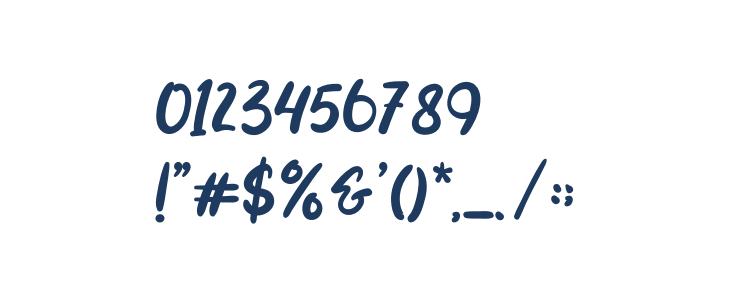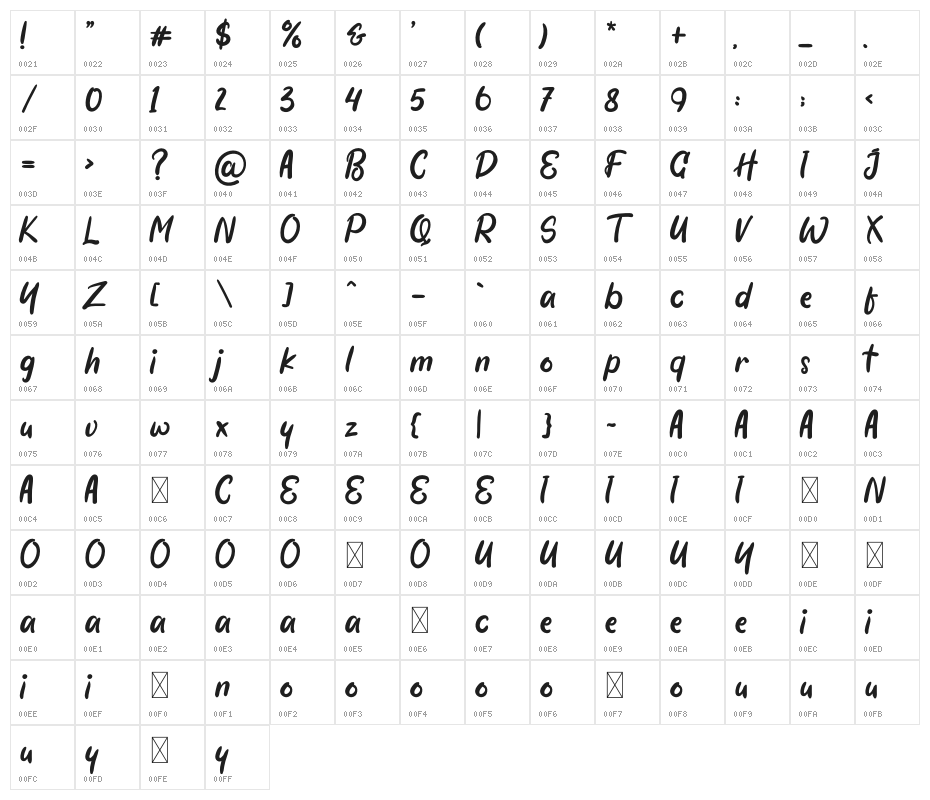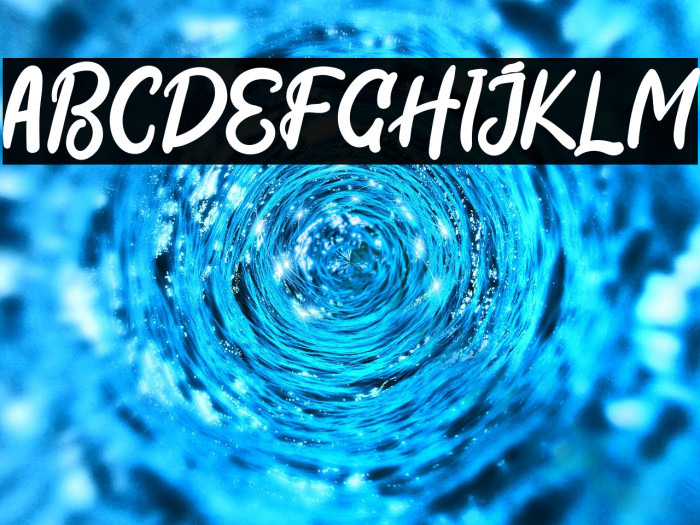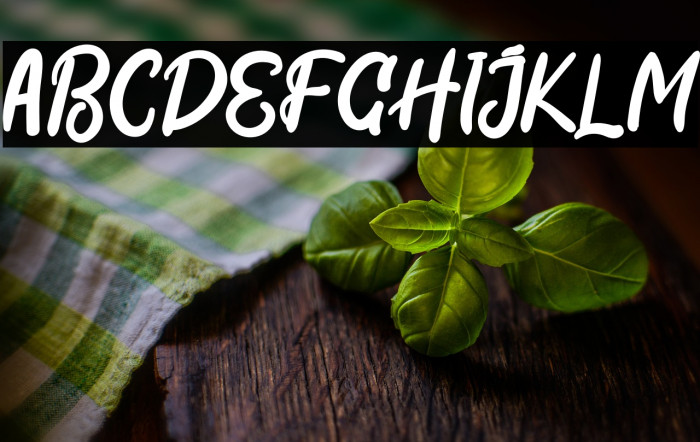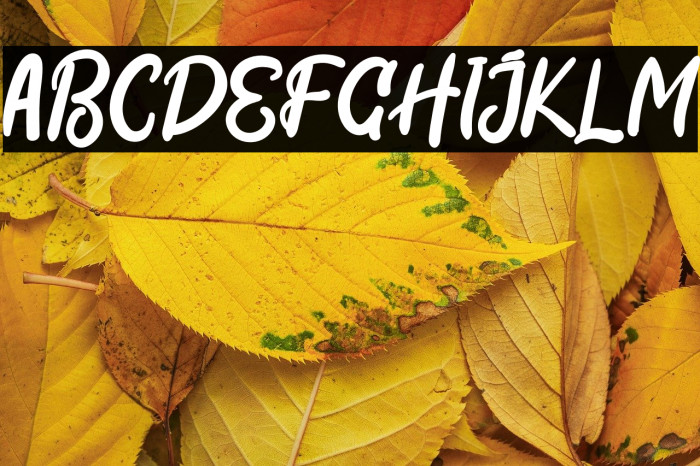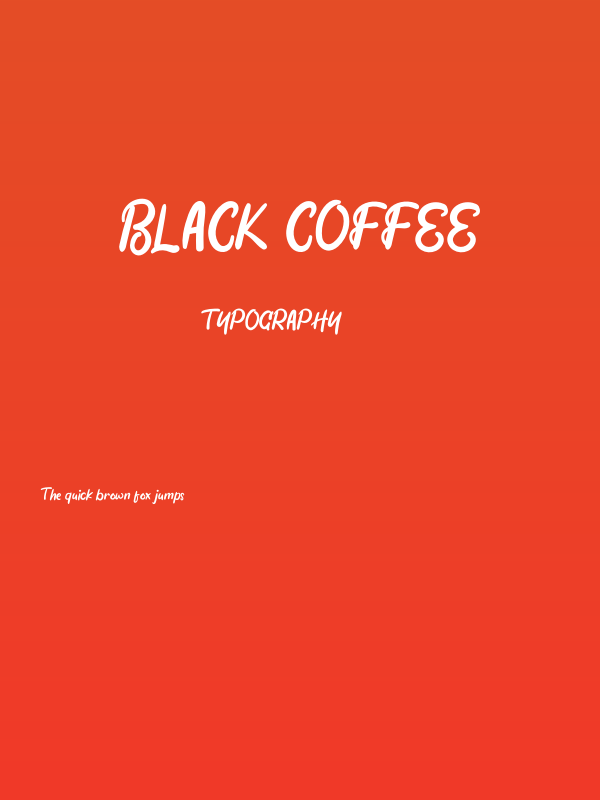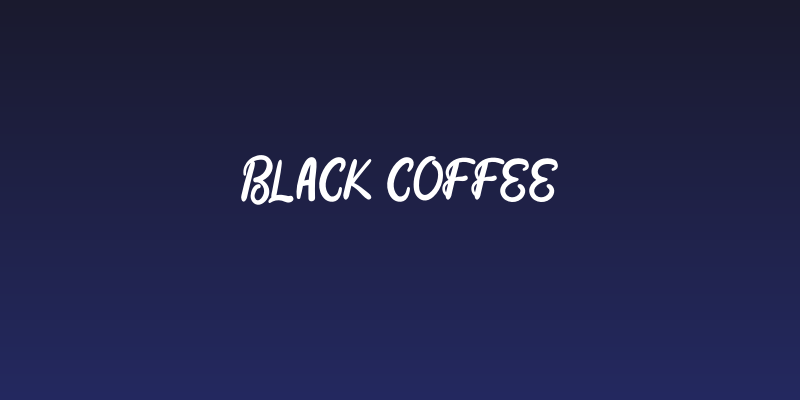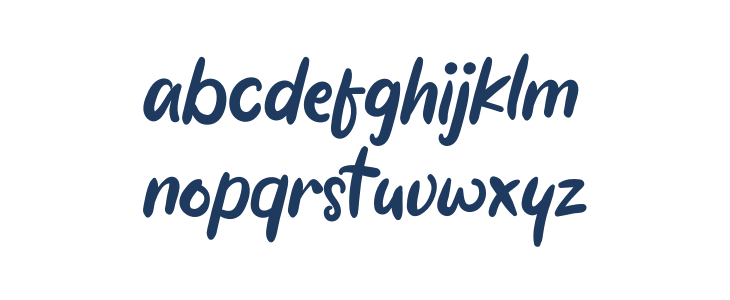
Black Coffee Font
Black Coffee Description
This font features a bold and expressive handwritten style, characterized by its smooth, flowing curves and slightly irregular shapes that give it a personal and dynamic feel. The uppercase letters are tall and slightly slanted, while the lowercase letters maintain a consistent roundness and fluidity. The numerals and special characters are crafted with the same attention to detail, ensuring a cohesive appearance across all glyphs. The overall design exudes a sense of energy and creativity, making it suitable for projects that require a personal touch or a casual, friendly vibe.